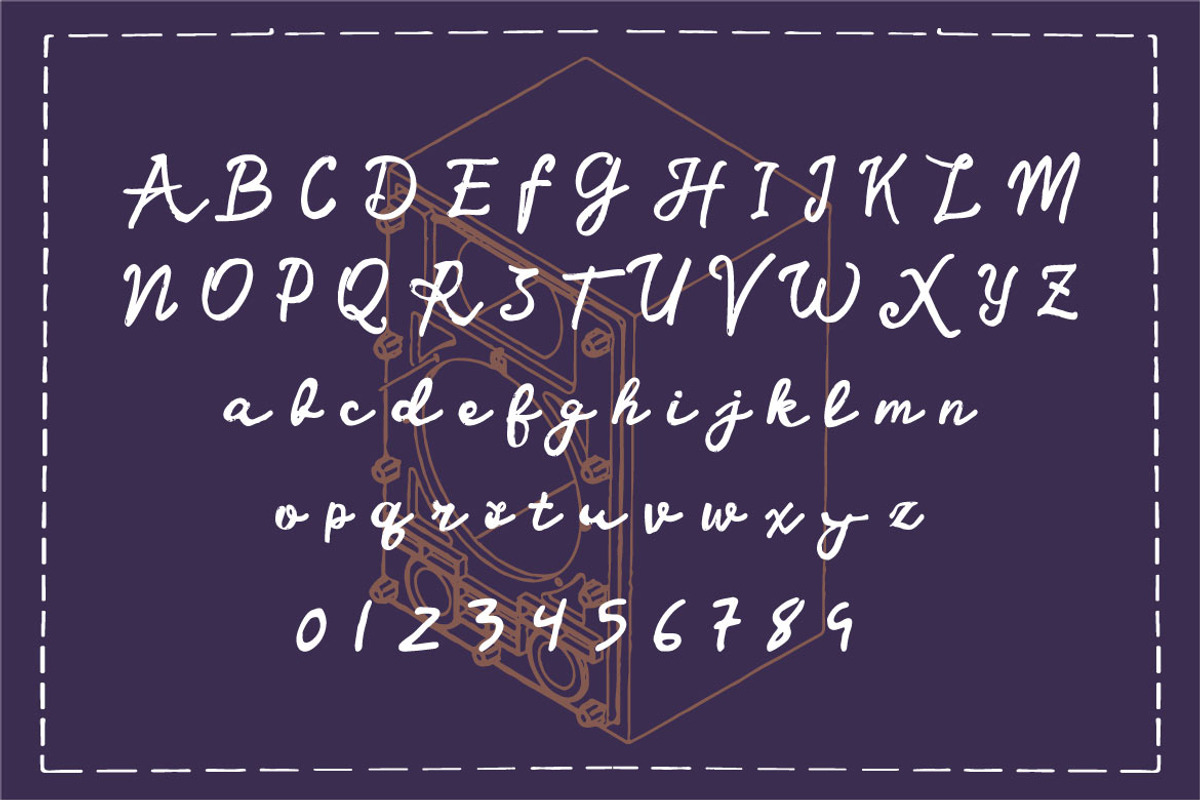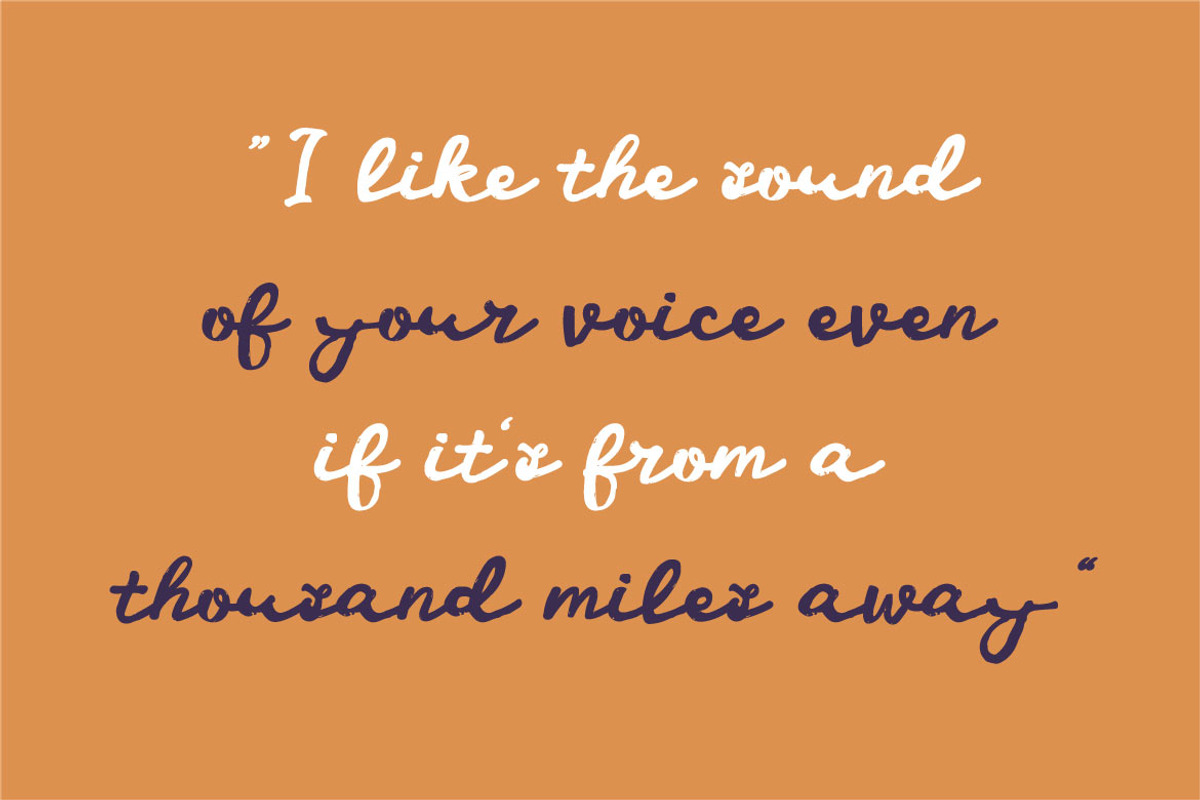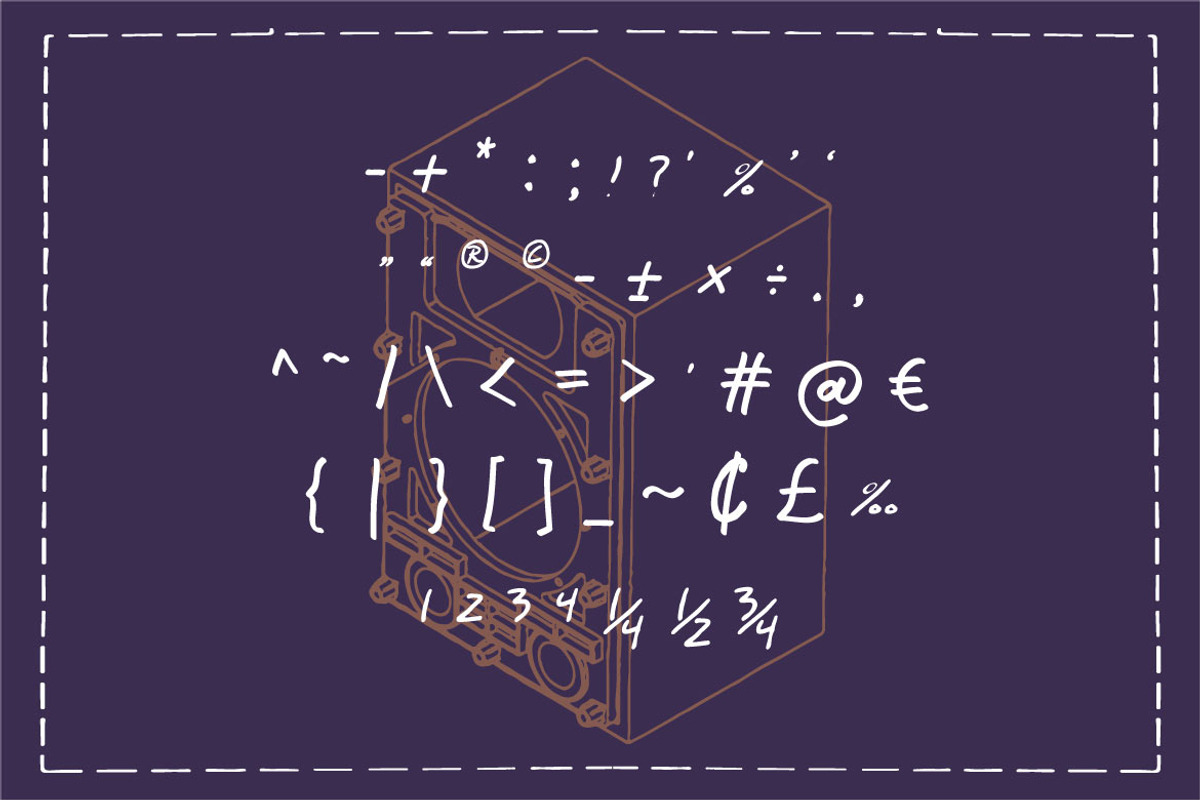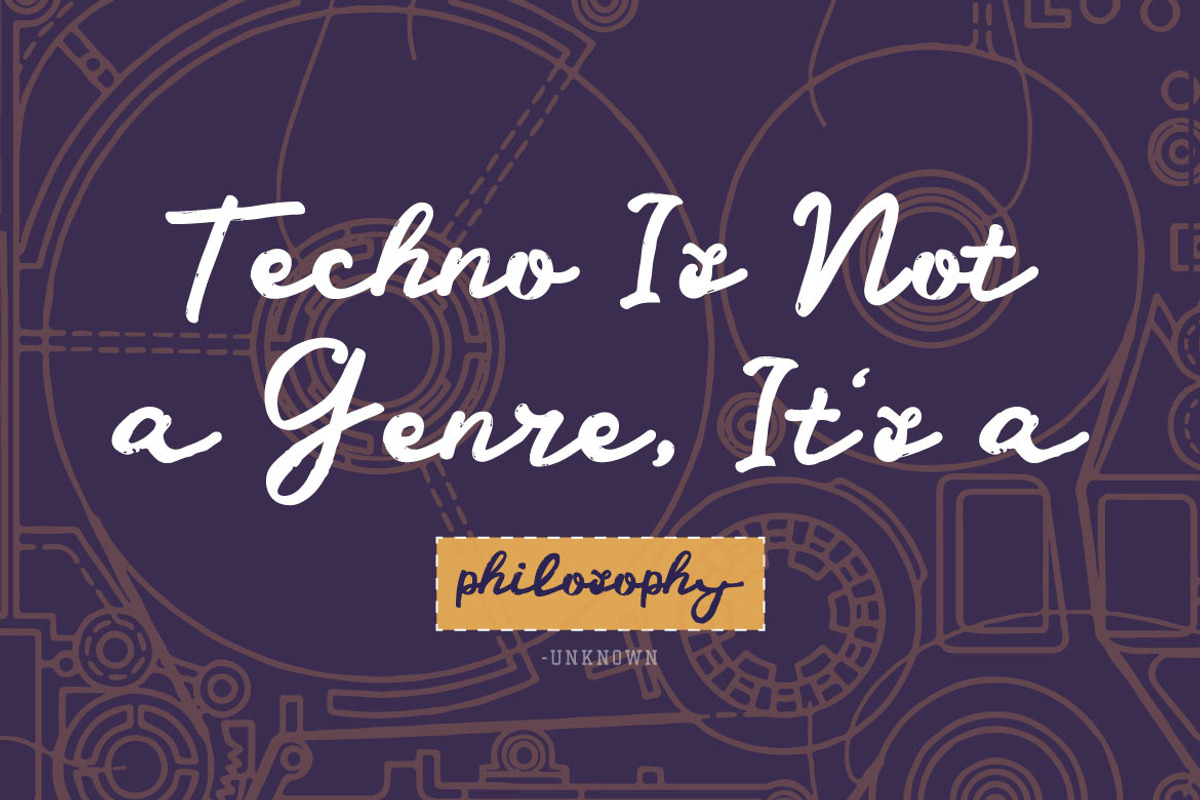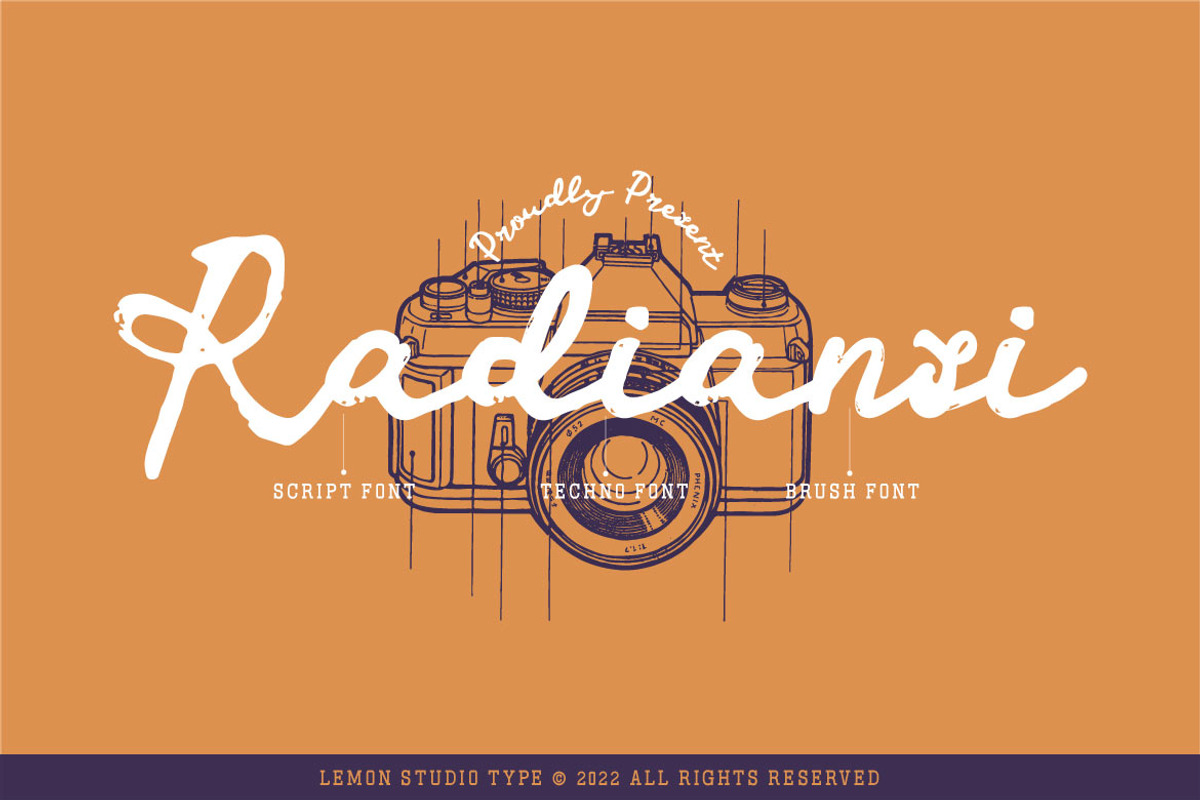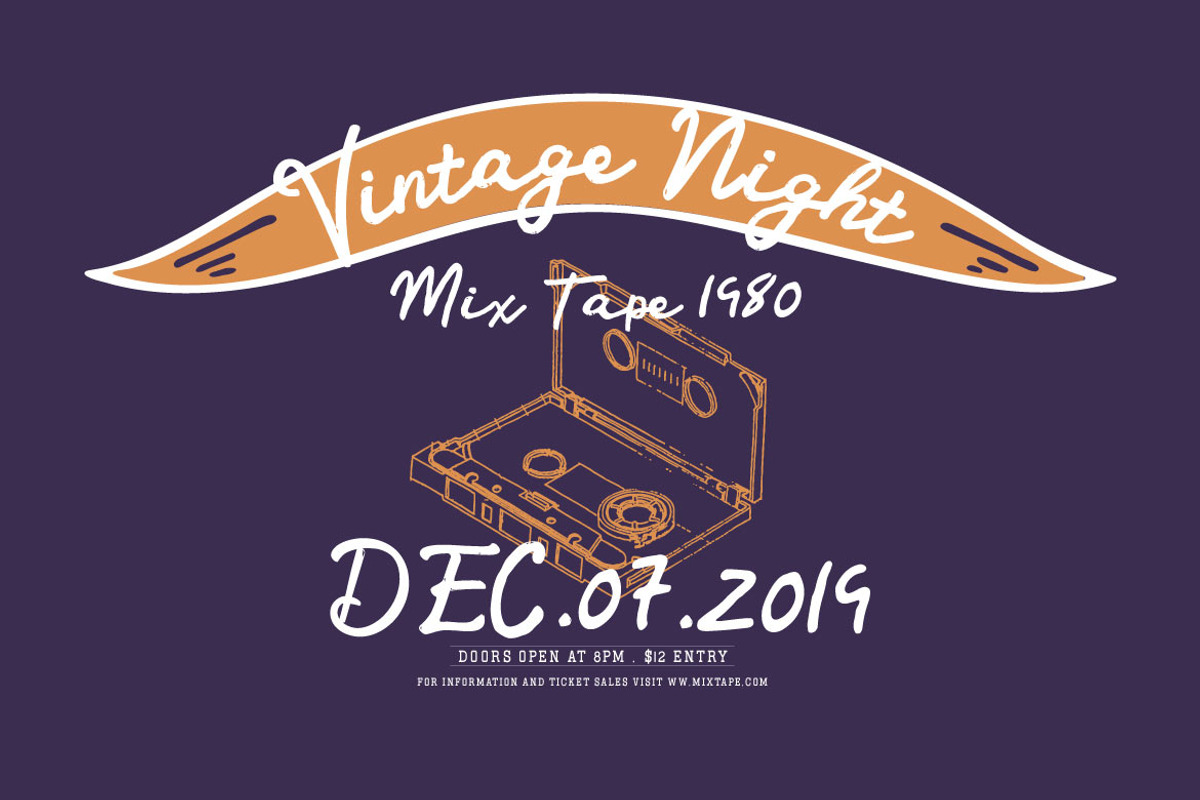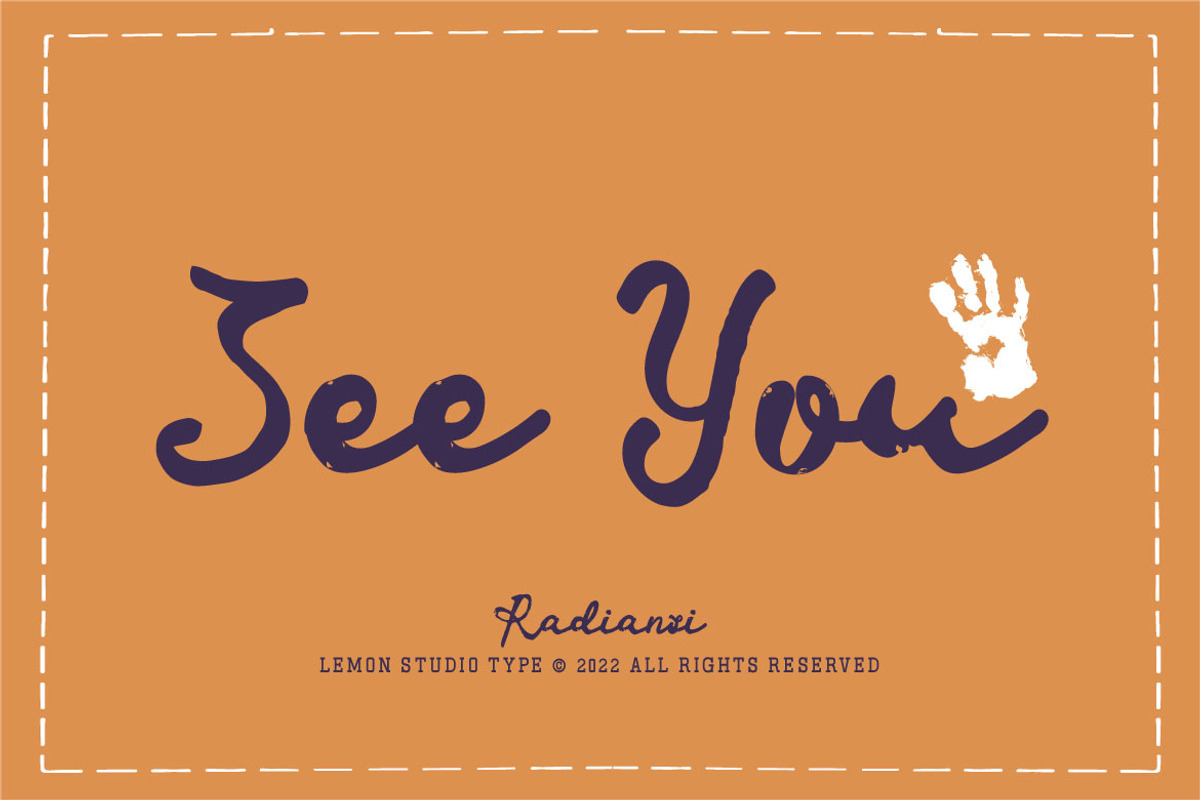
Radiansi - Vintage Script
Radiansi is a script and techno style font. Developed into a techno style with a classy and vintage brush concept. This font has a shape suitable for vintage, futuristic, techno, digital, sci-fi themes.
Radiansi is a great font of choice to apply for techno brands, packaging, magazines, social media, headlines and more. Use as much as you need.